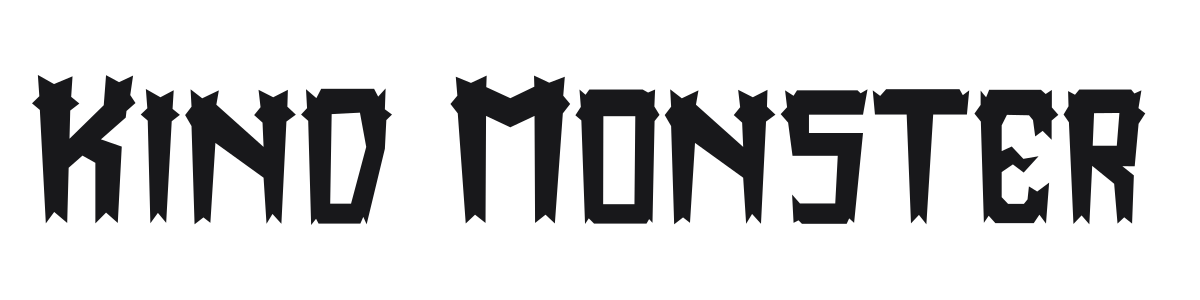
Kind Monster
Kind Monster is a heavy condensed display font built around sharp fang-like spikes and jagged notches that give every character a menacing, creature-inspired edge. The blocky angular structure sits somewhere between a slab serif and a blackletter, with distressed cuts adding raw texture throughout. It suits horror branding, metal album art, gaming titles, and anything that needs to feel dangerous.